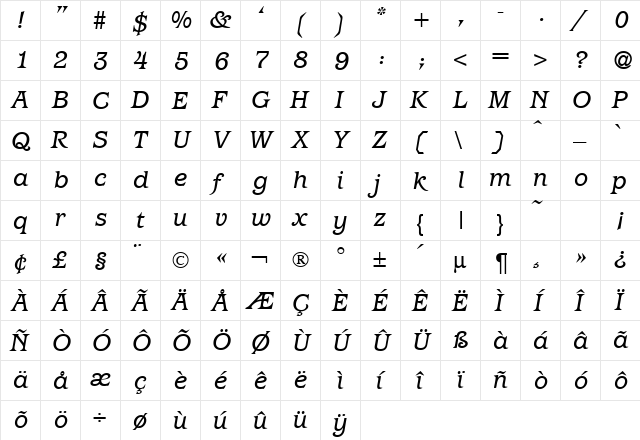
Bacci Italic
Design Context for Bacci Typeface
Bacci offers clean, dependable letterforms without strong stylistic allegiance, making it a practical choice for designers who need flexibility. The dynamic lean of this cut emphasises speed and emphasis in any layout.